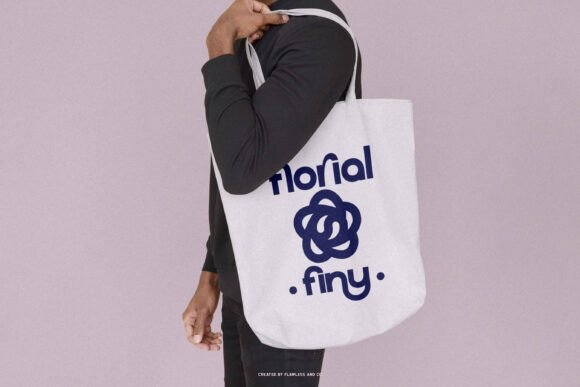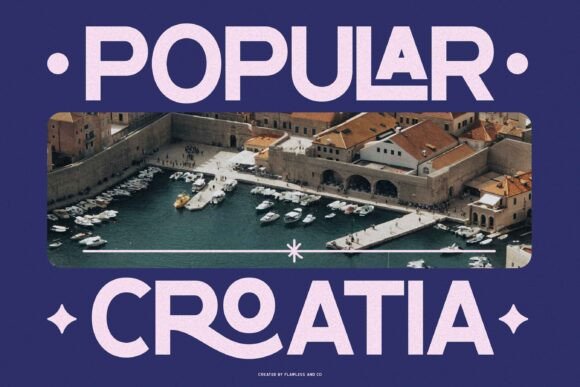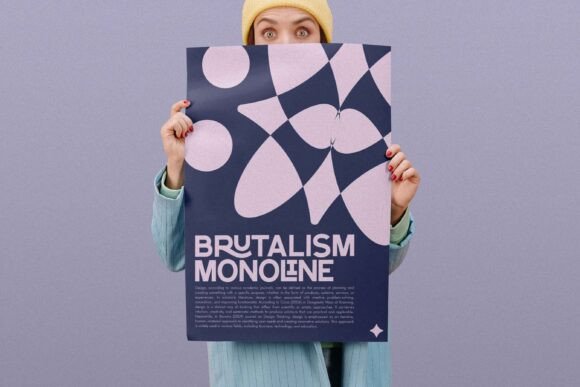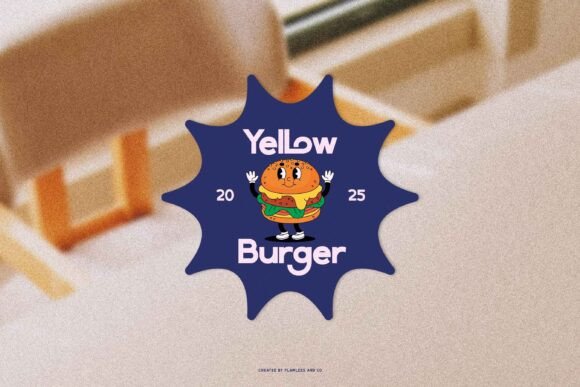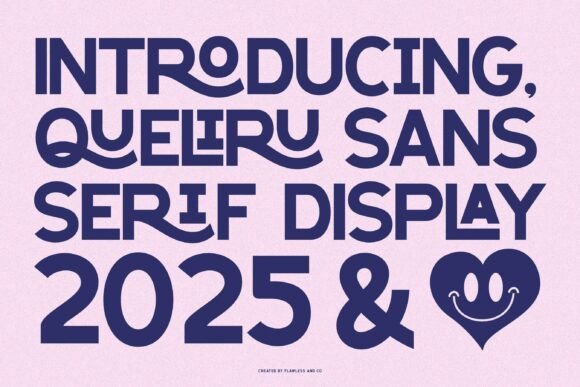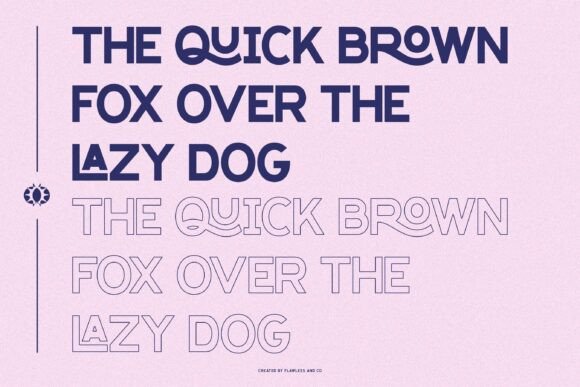
Introduction to Queliru Font
Have you ever found yourself in the middle of a creative project, desperately searching for the perfect font to give it that extra oomph? You know, that moment when everything seems to be coming together, but something’s missing? For designers, this is a common conundrum. But fear not, dear creatives, for we have discovered a game-changer – the Queliru Font.
This bold sans serif display font is a high-quality design resource that exudes strength and modernity. With its clean lines and impactful presence, it’s the perfect solution for branding, headlines, posters, sports designs, advertising, and social media graphics. Its transparent background makes it a versatile choice for any creative project, allowing you to layer it over images or use it on its own with a clean, high-quality look.
Key Features of Queliru Font
- Unique, hand-drawn design perfect for creative projects that require a high-quality, distinctive look.
- Perfect for designers working on creative projects that require a touch of elegance and sophistication.
- Queliru Font is a versatile design element that can be used in various contexts, from branding and advertising to editorial and publishing.
Honest Review: Queliru Font
I recently came across the Queliru Font, and I must say it’s a great addition to any designer’s toolkit. As a designer, I’m always on the lookout for high-quality fonts that can elevate my creative projects.
One of the standout features of the Queliru Font is its high-quality design. The font is well-crafted, with a smooth and elegant feel that’s perfect for a variety of design projects.
Here are some of the things that work well with the Queliru Font:
Overall, I’m impressed with the Queliru Font, and I think it’s a great addition to any designer’s toolkit. While it may have some limitations, it’s a high-quality font that’s perfect for a variety of creative projects.
For optimal results, pair the Queliru Font with other high-quality design elements to create a visually appealing design. Experiment with different font sizes, colors, and arrangements to find the perfect combination for your project.
The Queliru Font is perfect for a variety of creative projects, including graphic design, branding, and digital art. Its high quality and versatility make it a valuable design resource for any project that requires a unique touch.